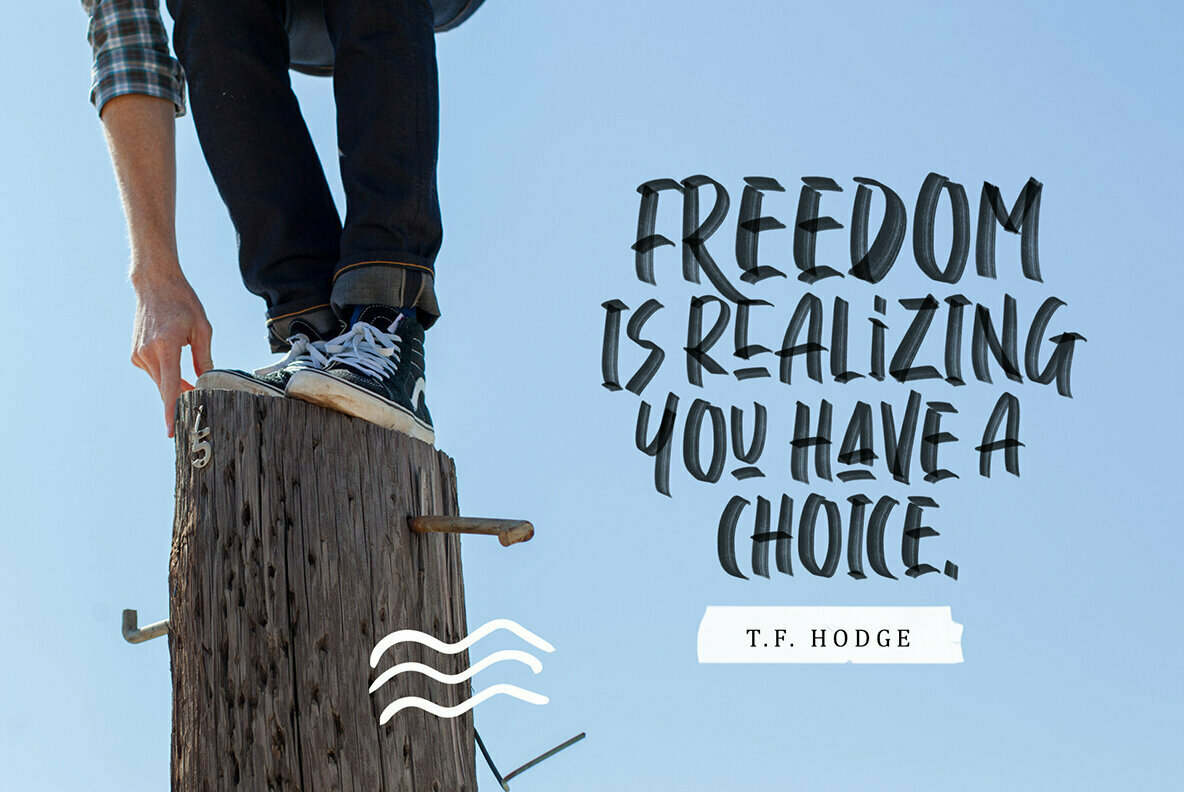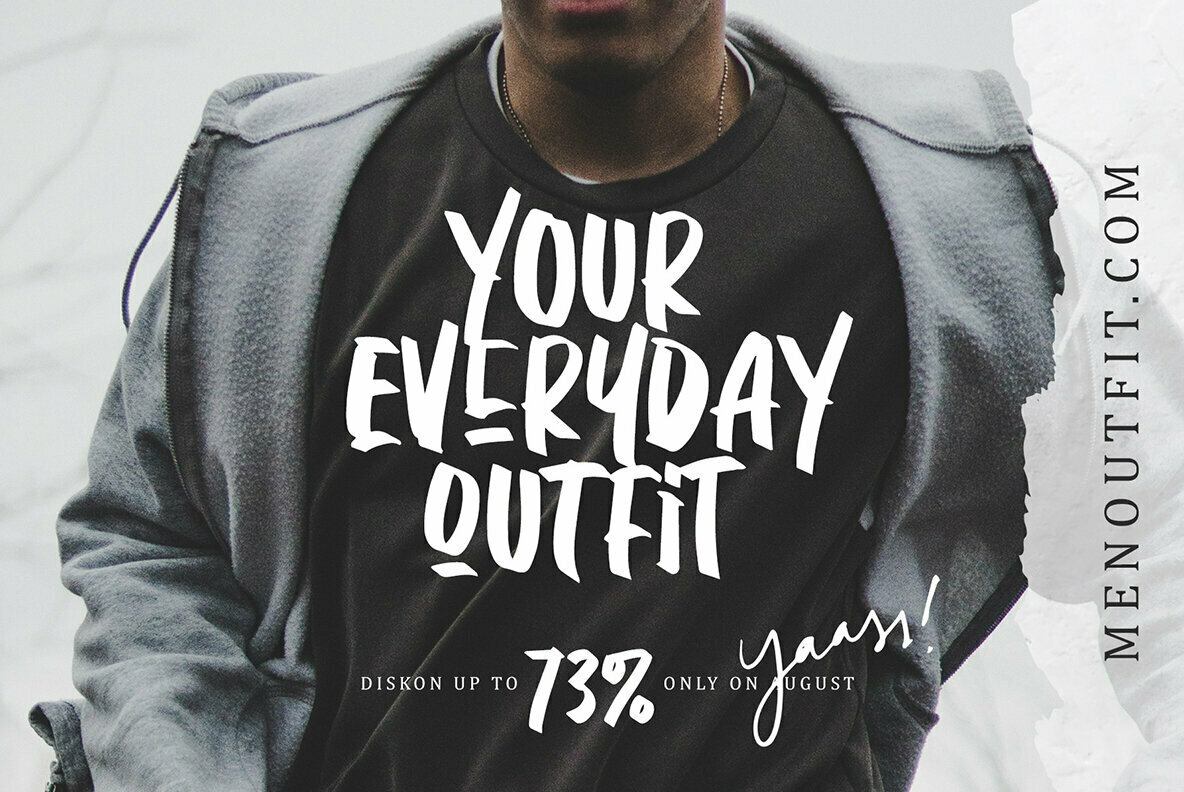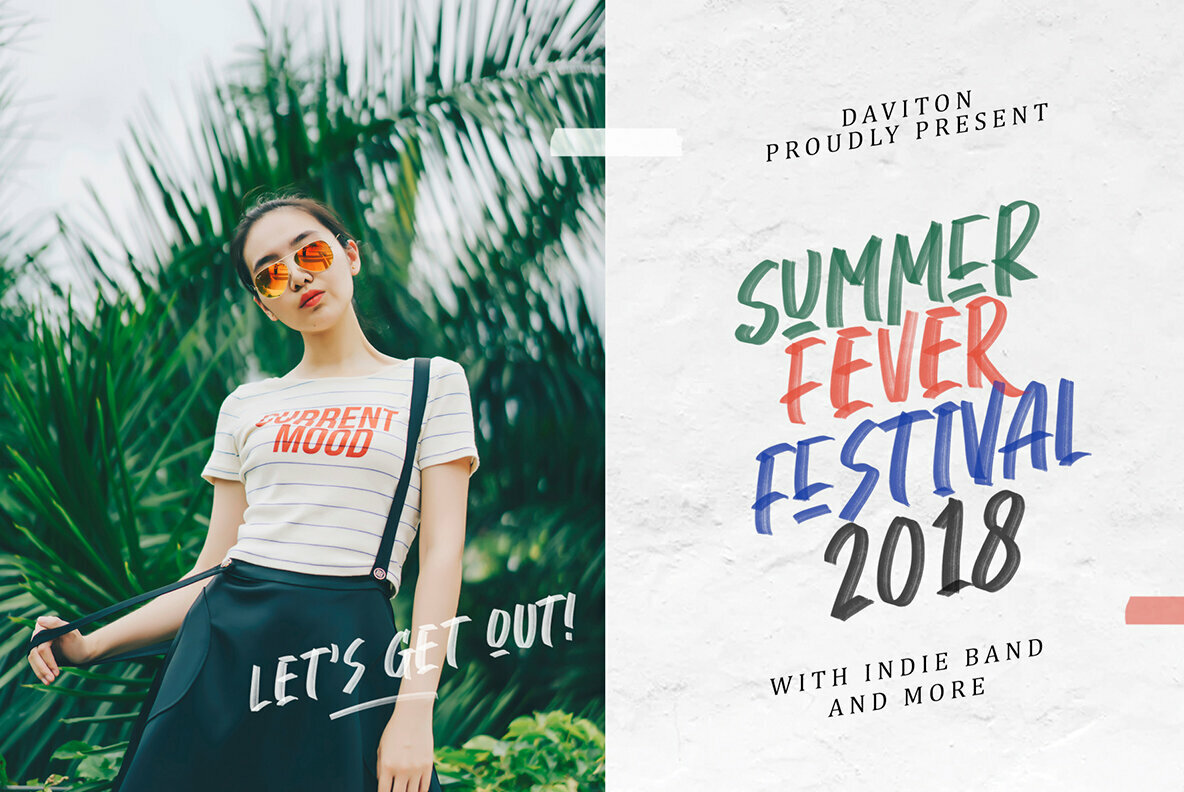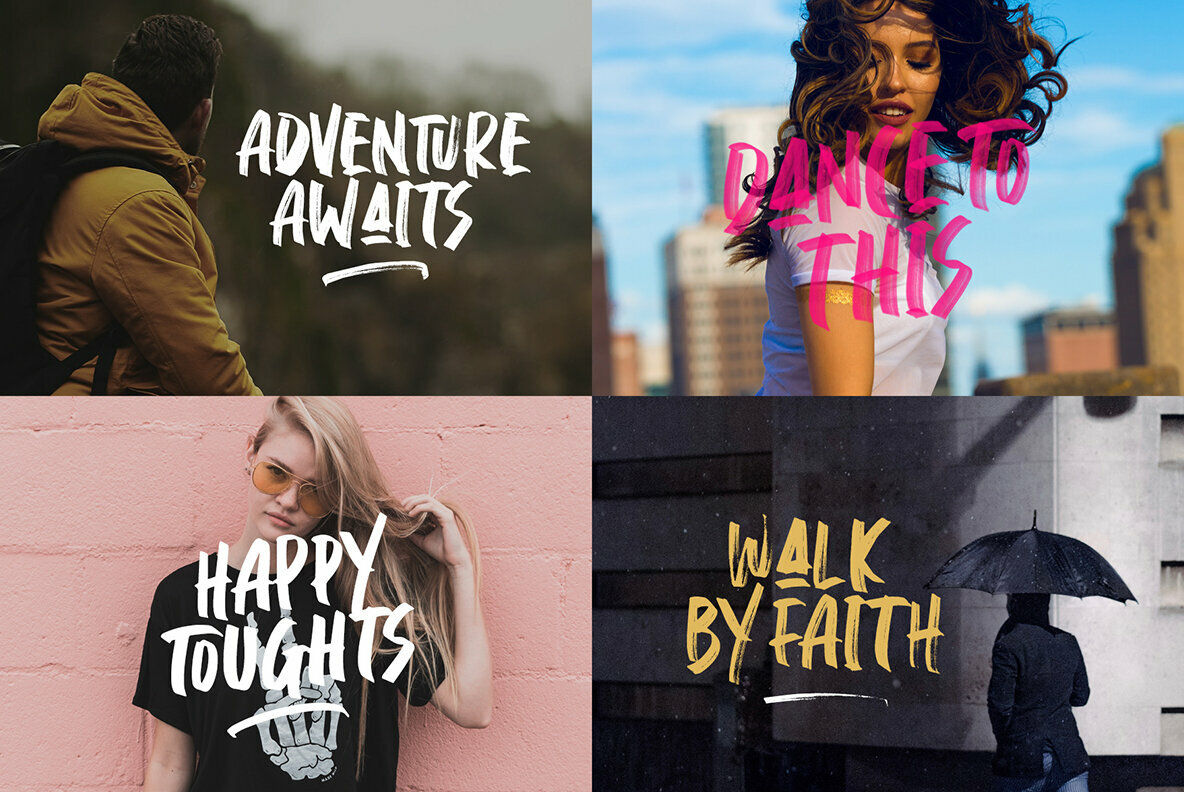
Daviton SVG Font
Introducing Daviton SVG, where craftsmanship meets digital prowess. This handmade font, created by Sarid Ezra, embodies the tactile charm of realistic handwriting, rendered beautifully in the latest SVG format. Perfect for a plethora of design applications, Daviton SVG brings authenticity and warmth to promotional materials and beyond, making your projects glow with a personal touch.Daviton SVG: A Handmade Artisanal Font